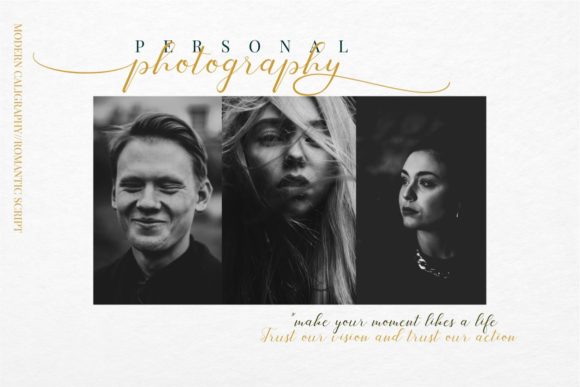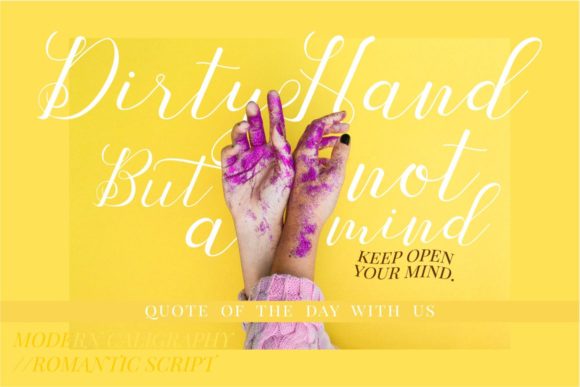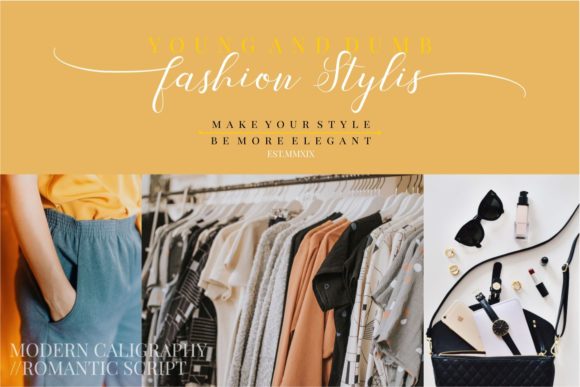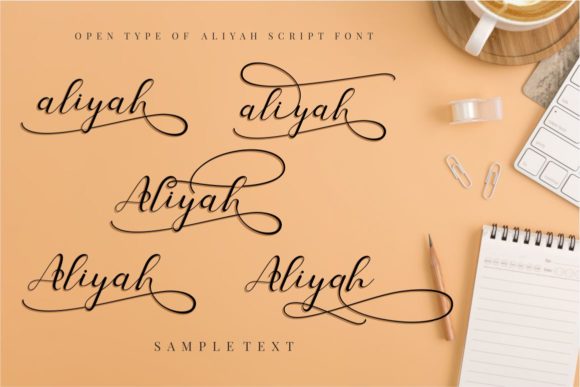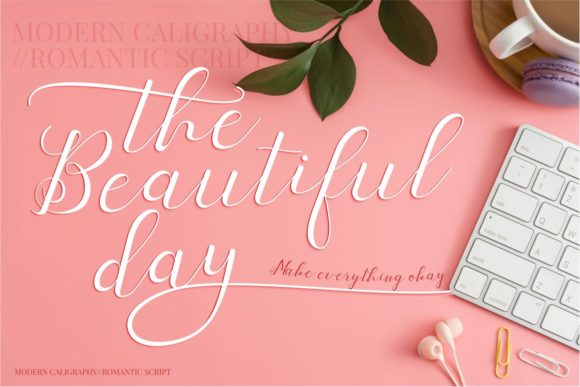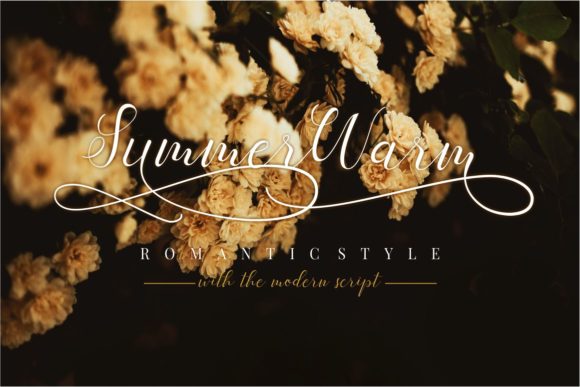
The Aliyah Font: A Stunning Script to Elevate Your Designs
I’ll never forget the moment I stumbled upon the Aliyah font. I was working on a project for a client who needed a bold, yet elegant script to brand their new product line. As I scrolled through my font library, I felt like I was hitting a creative roadblock. That’s when I saw Aliyah – a stunning, beautiful, and bold script with a unique twist that immediately caught my eye.
The organic feel of Aliyah drew me in, and I knew I had to learn more. In this article, I’ll share my honest review of the Aliyah font, provide a practical guide on how to use it on various platforms, and explore similar fonts that you might love.
My Honest Review of Aliyah Font
The Good: What I Love About Aliyah Font
- ✨ Unique and eye-catching design: Aliyah’s bold and elegant script stands out from the crowd, making it perfect for headlines, titles, and branding.
- ✅ Highly versatile: This font can be used for a wide range of projects, from wedding invitations and logos to packaging and advertising.
- 💫 Organic feel: Aliyah’s subtle imperfections and natural flow give it a warm, human touch that’s hard to find in digital fonts.
The Not-So-Good: Small Quirks and Limitations
While Aliyah is an amazing font, it’s not perfect. Here are a few things to keep in mind:
- 🤔 Limited use in body text: Due to its bold and decorative nature, Aliyah might not be the best choice for long blocks of body text. It’s better suited for headings and titles.
- ⚠️ Some characters may require manual adjustment: As with any font, you might need to tweak certain characters to ensure proper kerning and spacing.
The Story Behind Aliyah Font
While the true story behind Aliyah’s creation might be unknown, it’s easy to imagine that the designer was inspired by the beauty of handwritten scripts and the need for unique, bold typography in digital design.
Perhaps the designer, fueled by a passion for calligraphy and lettering, set out to create a font that would capture the essence of organic, hand-crafted typography. With Aliyah, they succeeded in creating a stunning script that adds a touch of elegance and sophistication to any design.
| Font Name | Aliyah Font |
| Author | putracetol |
Q: What makes Aliyah font unique?
A: Aliyah’s unique blend of bold and elegant features, combined with its organic feel, sets it apart from other scripts.
Q: Is Aliyah suitable for body text?
A: While Aliyah is a beautiful font, it’s better suited for headings and titles due to its bold and decorative nature.